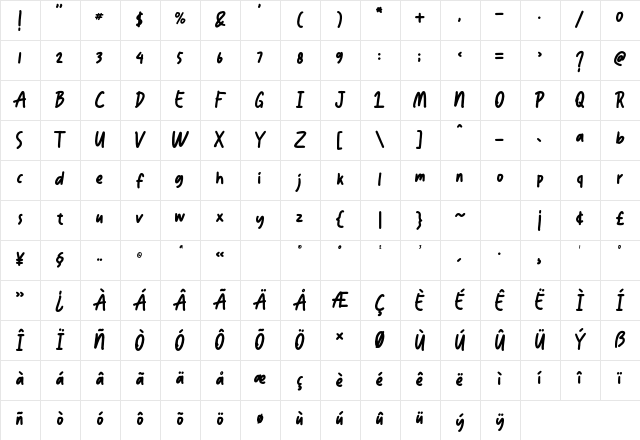
Hzoland Regular Free Font
Hzoland Regular
Foundry: Subqi Studio
Designer: Amir Subqi Setiaji
Design Context for Hzoland
Hzoland is a composed and adaptable typeface that performs quietly and consistently across a wide range of design contexts.